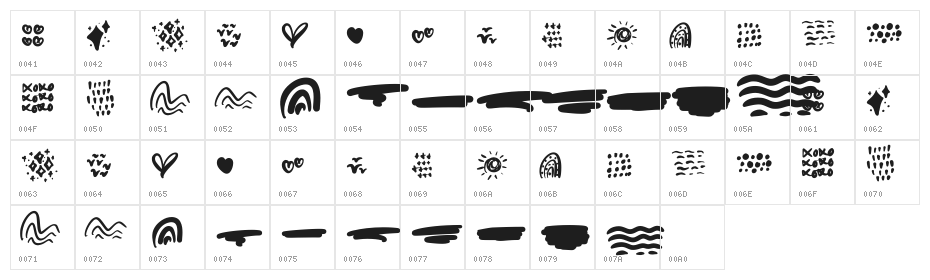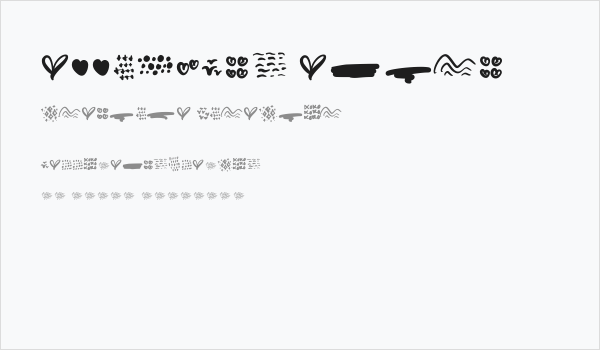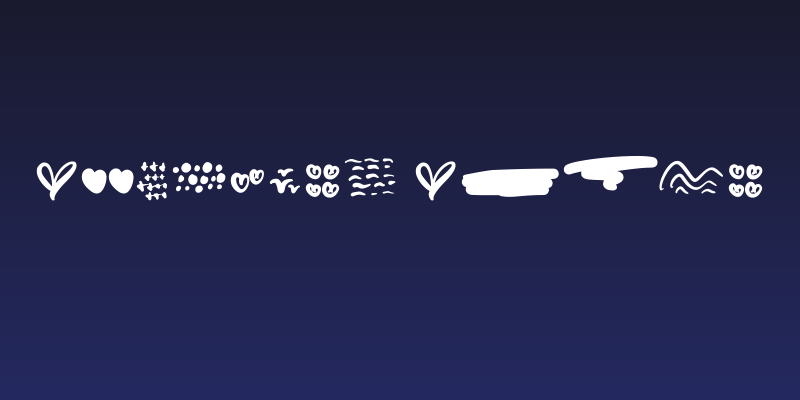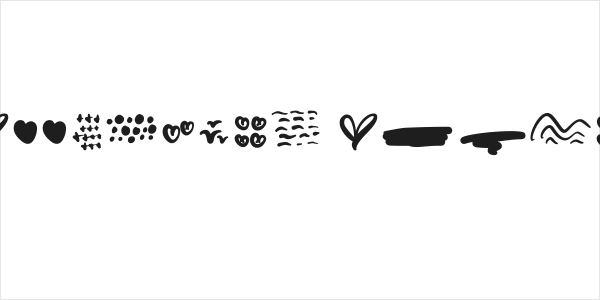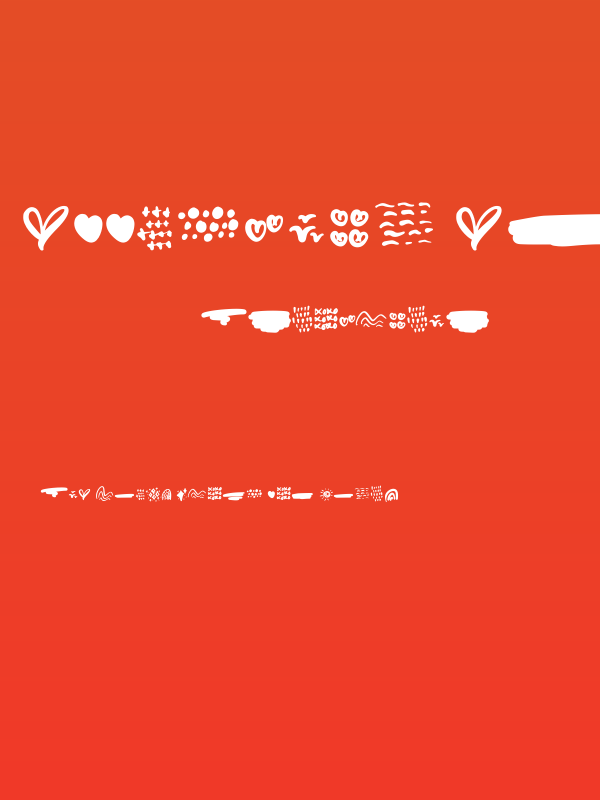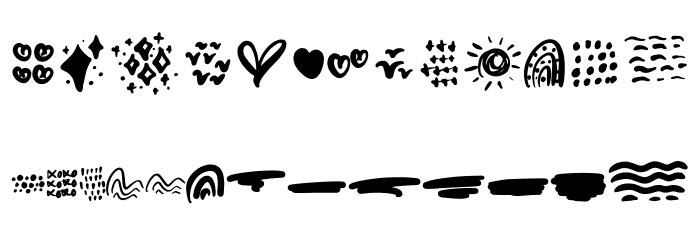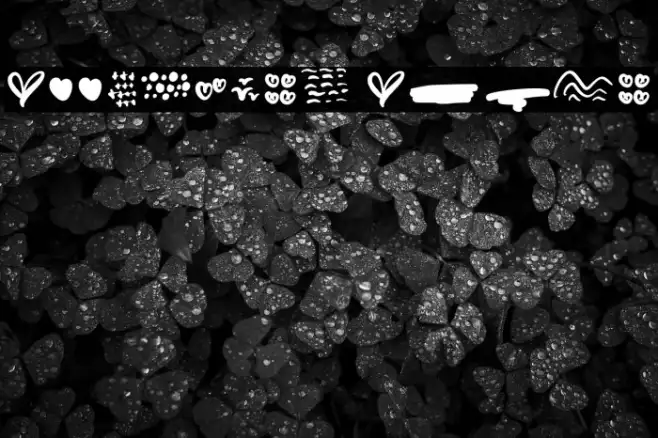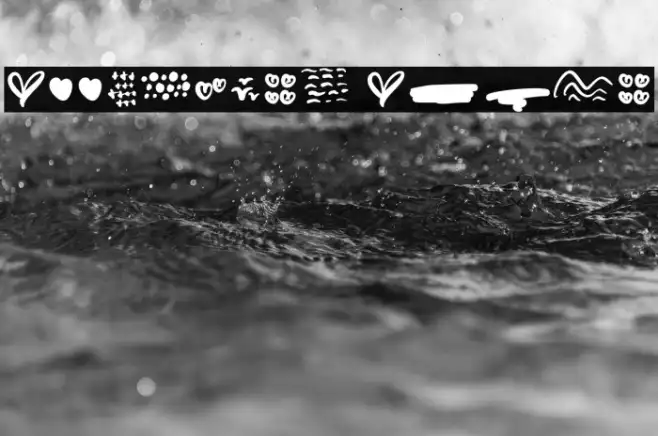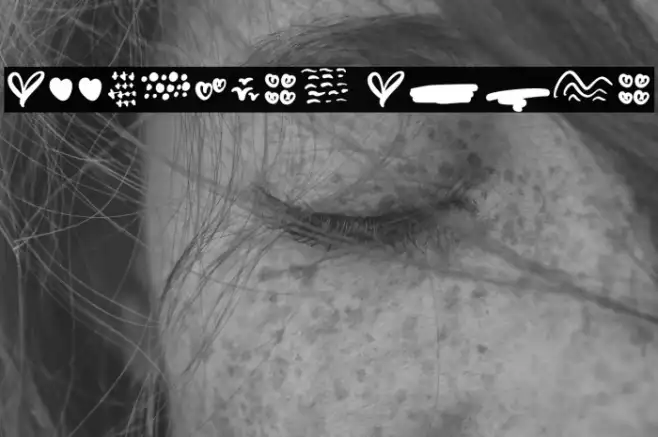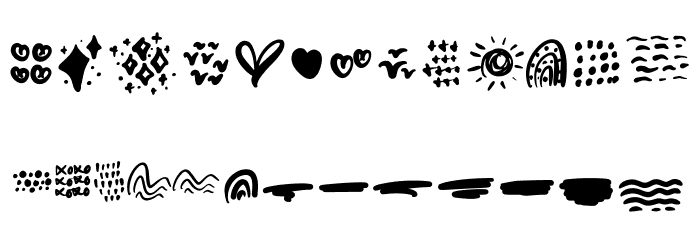
Effingham Extra Font
Effingham Extra Description
This set of symbols features a playful and whimsical design, incorporating a variety of abstract shapes and icons. The elements include hearts, diamonds, suns, rainbows, and wavy lines, each crafted with a hand-drawn aesthetic. The style is bold and expressive, with thick strokes and a casual, artistic flair. The collection is ideal for adding a touch of creativity and fun to any project, offering a unique way to convey emotions and ideas through visual elements.
| Overall Style | Whimsical, Artistic, Playful |
| Use Case | Decorative elements, Creative projects |
| Proposed Projects | Ideal for creative projects such as greeting cards, children's books, playful branding, and decorative posters. |